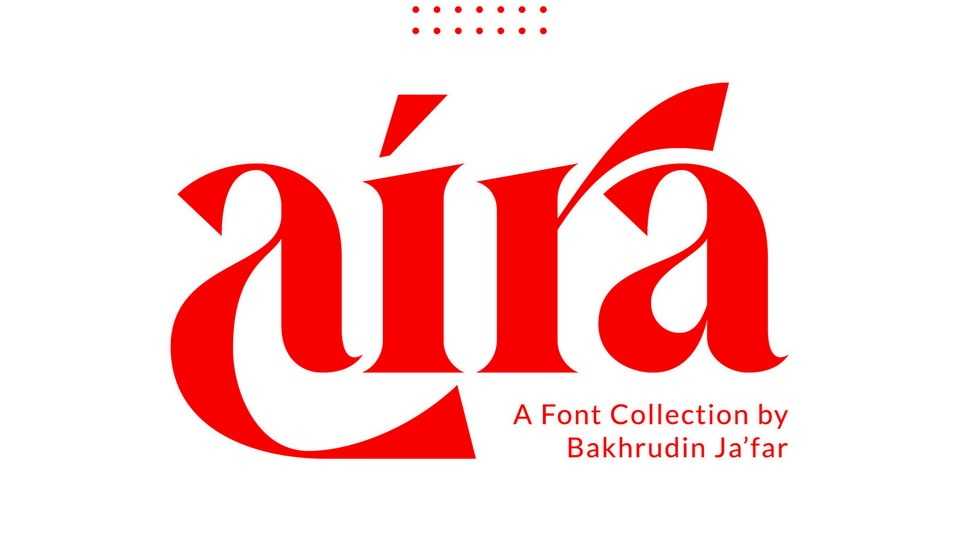
Download Aira font, a serif typeface with a modern style that is designed very neatly and boldly, especially for designers and clients who want to have a classic yet trendy design concept